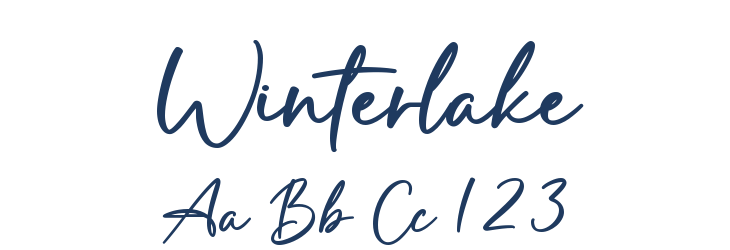
Winterlake Font
A handwritten cursive script font with a casual, flowing style.
winterline Font
Font by Almarkhatype - Abdul Malik Wisnu - Personal-use only. For commercial use please contact owner.
An elegant, flowing script font with a handwritten, artistic style.
winterline Font
Font by Almarkhatype - Abdul Malik Wisnu - Personal-use only. For commercial use please contact owner.
A flowing, cursive font with elegant, sweeping strokes and a handwritten appearance.
Winterlive Font
Font by Inermedia Studio
An elegant and flowing script font with ornate uppercase and smooth lowercase letters.
WinterMagical Font
Font by BeeBasni - Personal-use only. For commercial use please contact owner.
A whimsical, elegant cursive font with flowing, artistic strokes.
Wintermelon Font
Font by Denise Bentulan - douxiegirl.com. Personal-use only. For commercial use please contact owner.
A playful, handwritten font with fluid, interconnected strokes.
WinterMint-Regular Font
Font by Alex Tomlinson - Skyhaven Fonts - shfonts.com
A playful, hand-drawn font with irregular strokes and a whimsical style.
Wintermute Font
A futuristic, geometric font with angular, block-like letterforms.
Wintermute-Regular Font
Font by www.typodermicfonts.com - Ray Larabie
A futuristic, geometric font with consistent stroke width and angular design.
Wintermute-Regular Font
Font by Typodermic Fonts - Raymond Larabie - Personal-use only. For commercial use please contact owner.
A futuristic, geometric font with sharp angles and consistent stroke width.
WinterNight DB Font
A decorative, star-studded serif font ideal for festive designs.
WinterPark Font